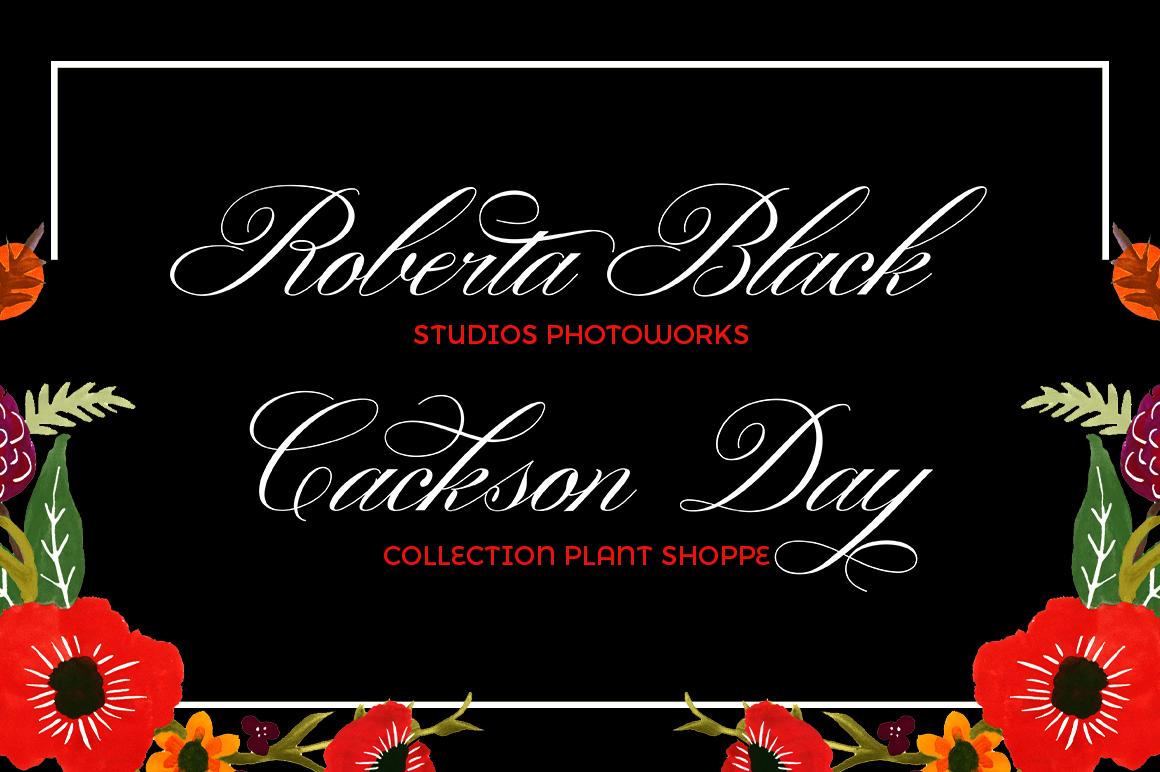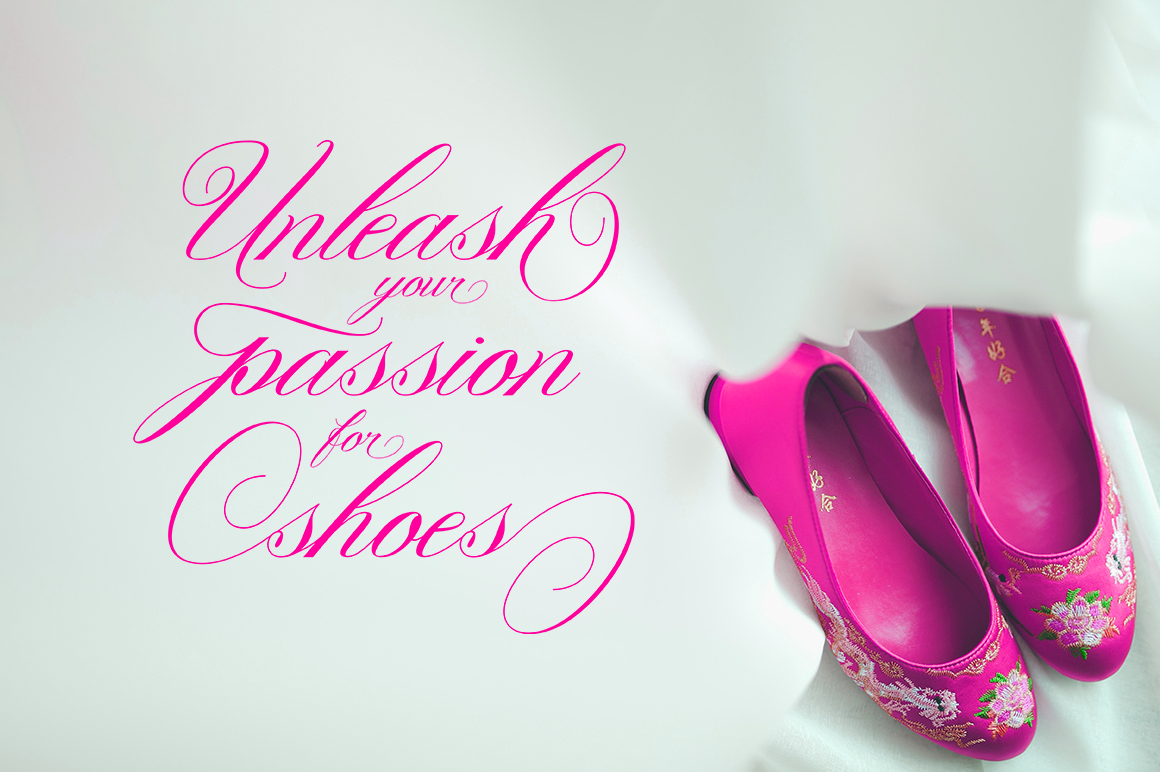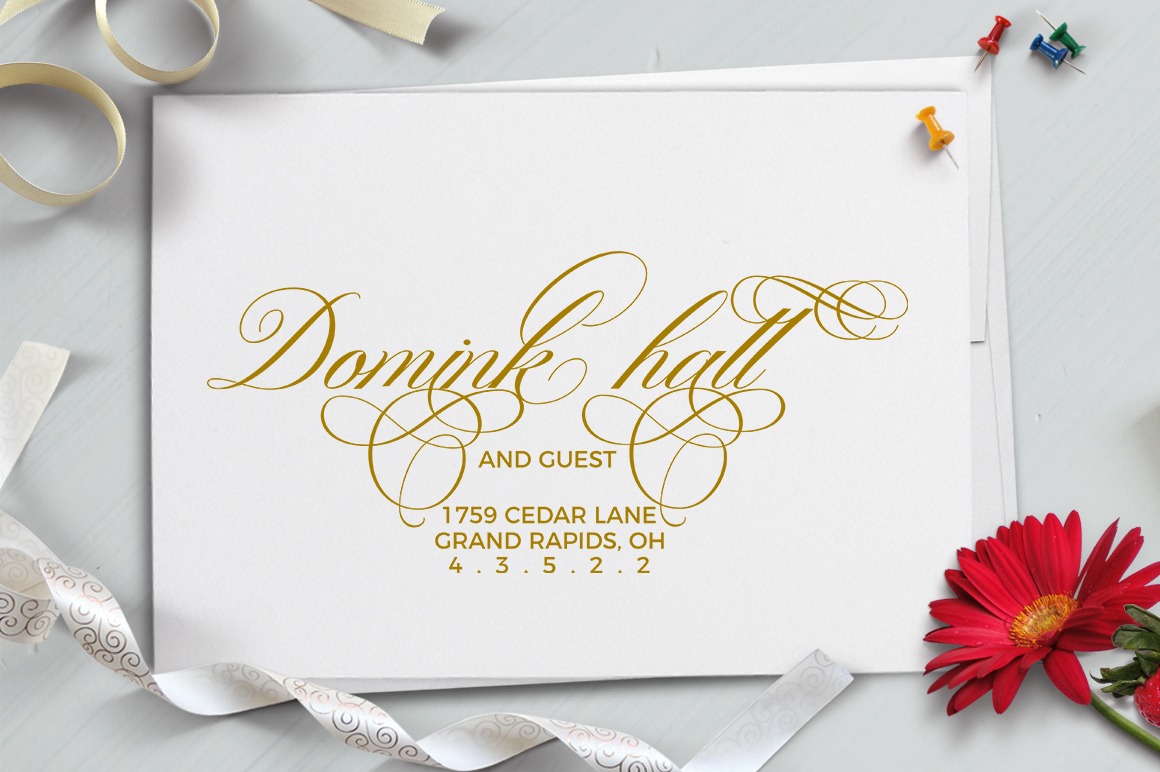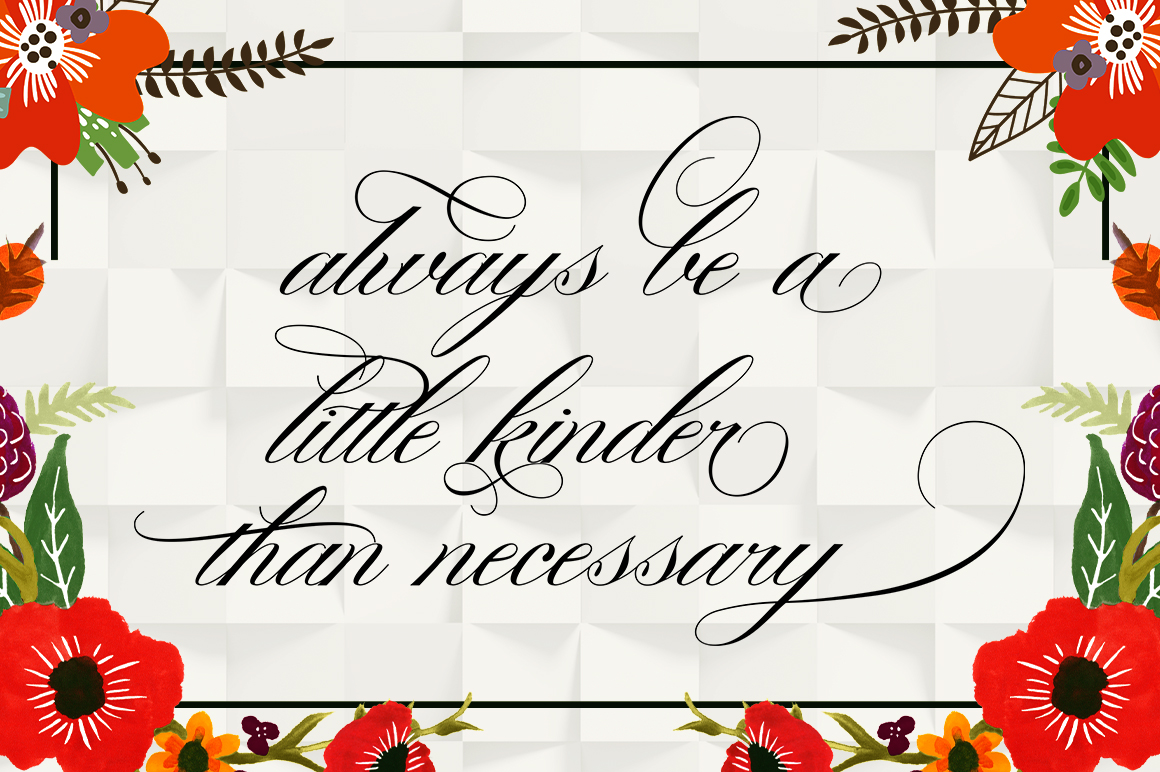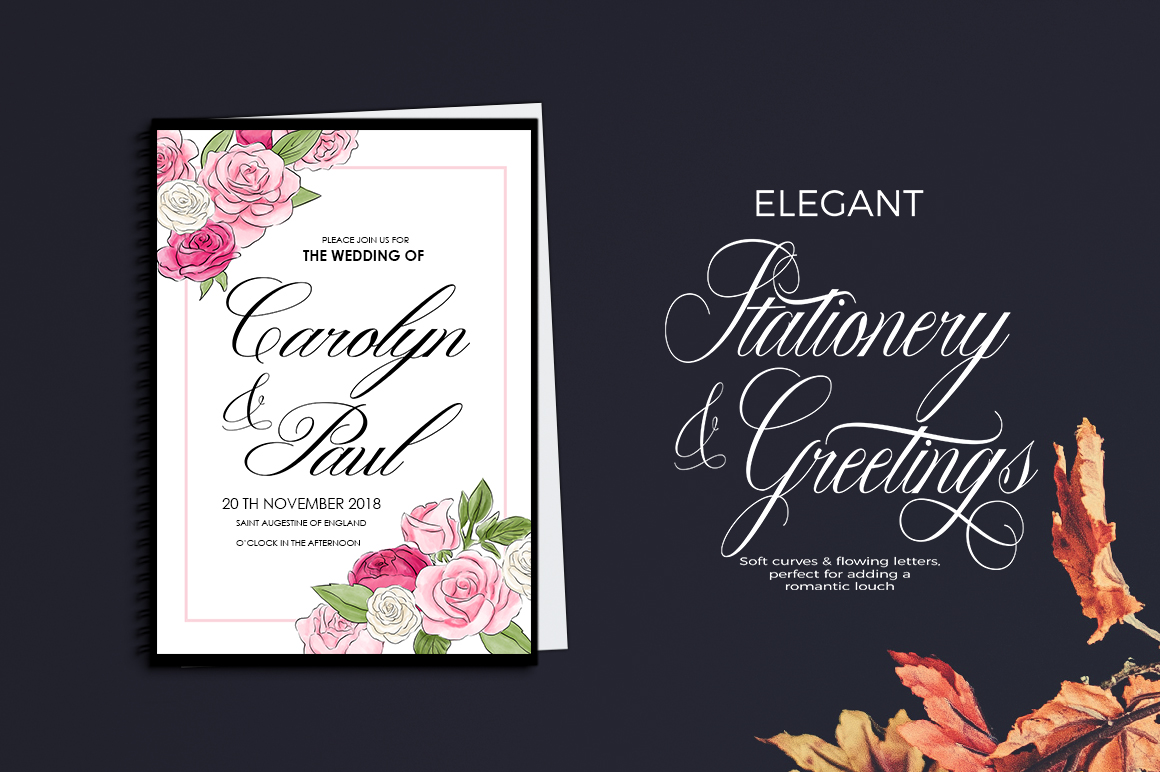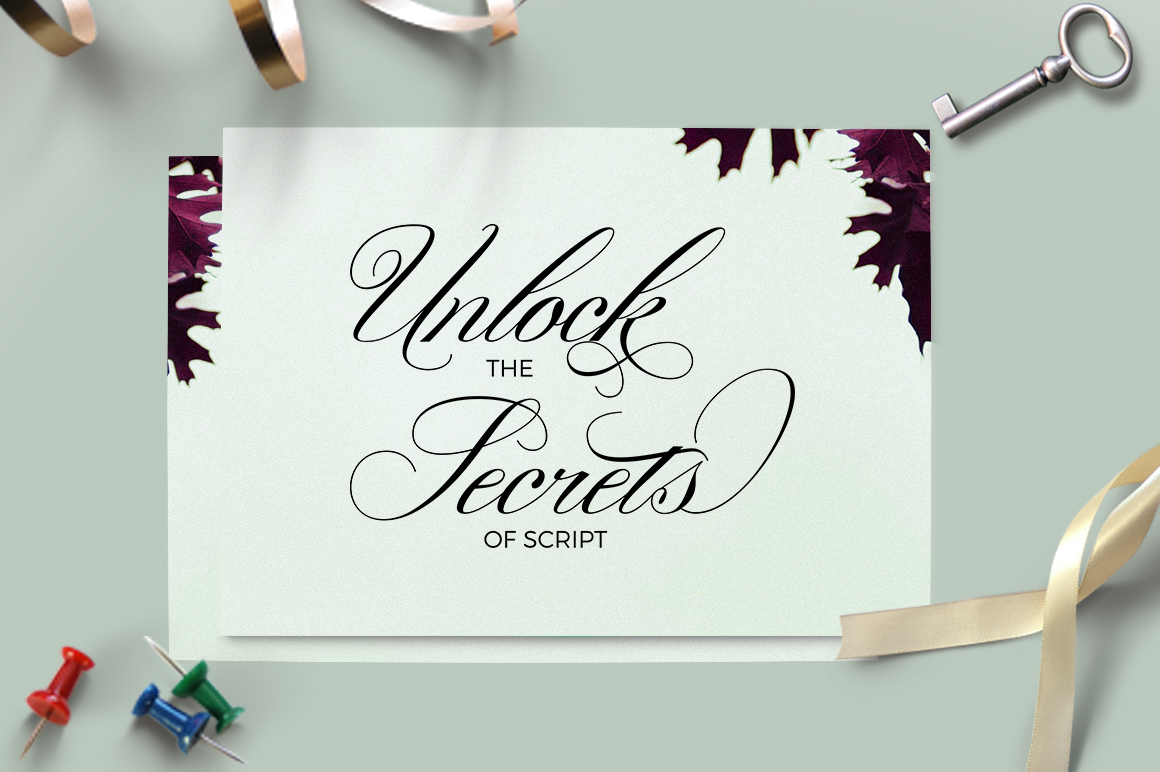
The Elegance of Gallisia Font: A Designer’s New Best Friend
I’ll never forget the time I was working on a branding project for a luxury wedding planner. I had spent hours perfecting the logo, but the text just didn’t feel… classy enough. I scoured font websites, but nothing seemed to fit the vibe I was going for. That was until I stumbled upon the Gallisia Script font. ✨ It was love at first sight! The neat, feminine strokes and elegant feel instantly elevated my design. In this article, I’ll share my experience with Gallisia Font, its features, and how to make the most of it in your designs.
An Honest Review of Gallisia Font
- ✨ Neat and feminine strokes: Gallisia Font has a very polished look, making it perfect for projects that require a touch of elegance.
- ✅ High versatility: This font can be used for a wide range of design projects, from logos and packaging to invitations and branding.
- 💫 Elegant feel: The font’s classic look adds a sophisticated touch to any text.
While Gallisia Font is amazing, there are a few things to keep in mind: 🤔
- ⚠️ Limited use for body text: Due to its elegant and cursive nature, Gallisia Font might not be the best choice for long paragraphs of body text.
- ⚠️ Requires attention to spacing: To maintain its classy look, you might need to adjust the spacing between letters or words.
A Practical Guide to Using Gallisia Font
- Experiment with OpenType features like ligatures and stylistic alternates to add more flair to your text.
- Explore the glyphs panel to access special characters, and use stylistic alternates to create variations.
The Designer Inspiration Behind Gallisia Font
While the origins of Gallisia Font are unclear, it’s easy to imagine a designer inspired by traditional calligraphy and the need for modern elegance in design. Perhaps a designer who wanted to create a font that would make any text feel luxurious and special.
Q: Is Gallisia Font suitable for body text?
A: While beautiful, Gallisia Font’s elegant and cursive nature makes it less ideal for long body text. It’s best used for headings or short paragraphs.
Q: Does Gallisia Font support OpenType features?
A: Yes, Gallisia Font likely supports OpenType features like ligatures and stylistic alternates, which can enhance your designs.